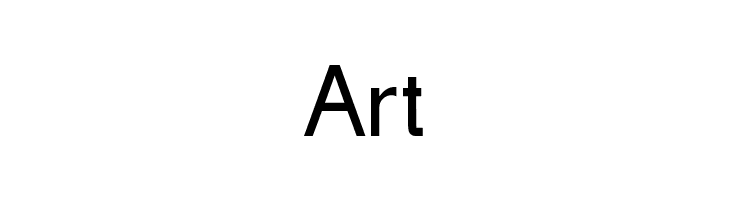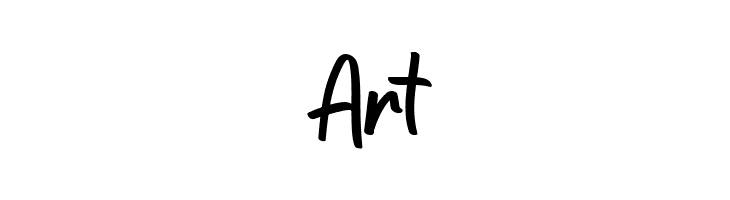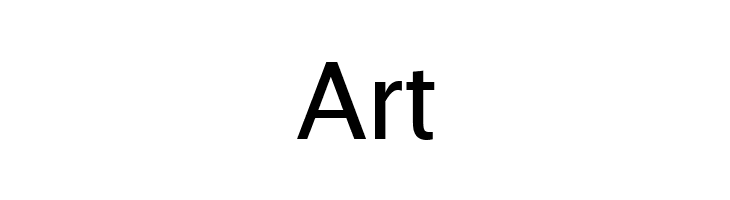
A clean, modern sans-serif typeface with balanced proportions and excellent readability.
A bold serif font with strong, elegant strokes and well-defined serifs.
A bold, oblique serif font with a classic yet dynamic style.
A classic serif font with an oblique slant, offering elegance and readability.
A classic serif typeface with elegant, balanced strokes and high readability.
A modern sans-serif font with clean lines and uniform stroke widths.
An elegant, high-contrast font with elongated letterforms and a luxurious style.
A high-contrast, elegant typeface with refined serifs and a luxurious style.
A lively handwritten font with fluid, natural strokes and a playful aesthetic.
A playful, handwritten font with bold, rounded characters.